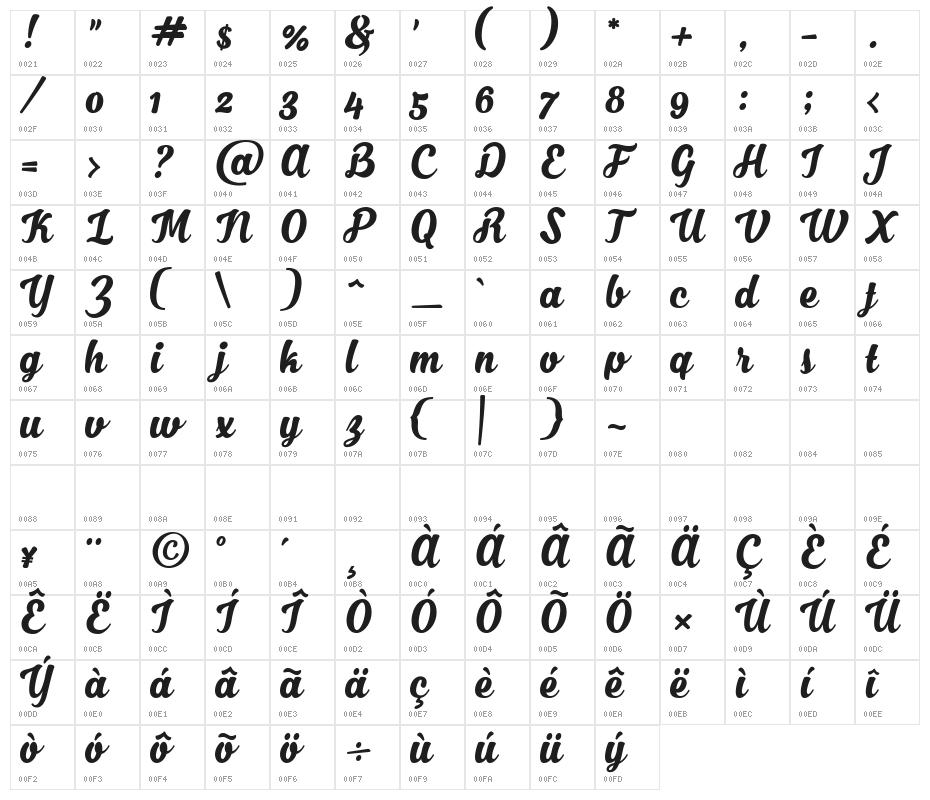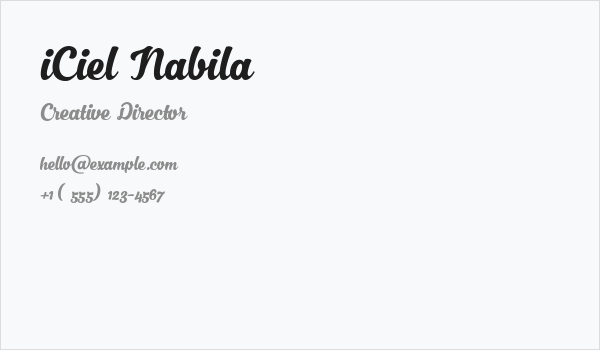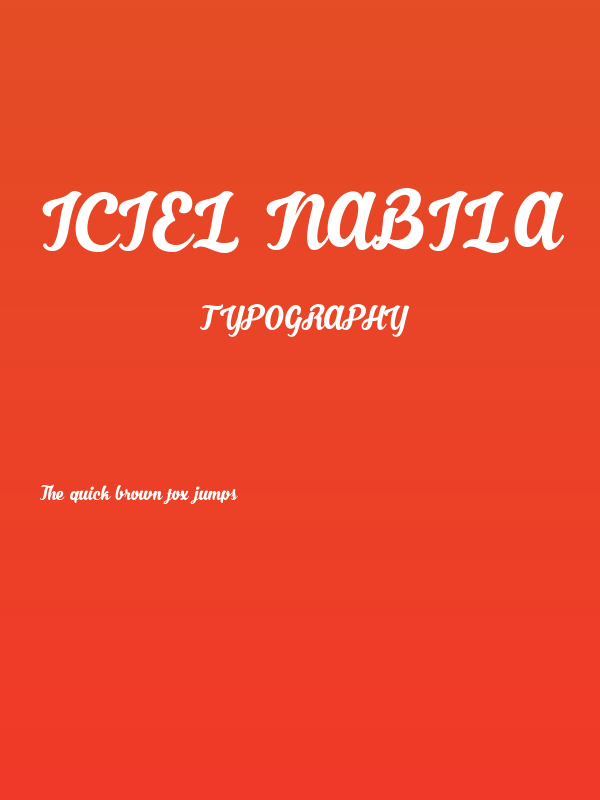
iCiel Nabila Font
iCiel Nabila Description
This font features a bold, flowing script style that exudes elegance and sophistication. The letters are interconnected, creating a seamless and fluid appearance. The uppercase characters are slightly larger and more ornate, while the lowercase letters maintain a consistent and harmonious look. The numbers and special characters are designed to match the overall aesthetic, with smooth curves and a balanced weight. This font is ideal for projects that require a touch of class and creativity, such as invitations, branding, and decorative designs.
| Overall Style | Elegant, Decorative |
| Use Case | Logos, Invitations, Decorative Text |
| Proposed Projects | Ideal for wedding invitations, branding, decorative designs, and elegant signage. |